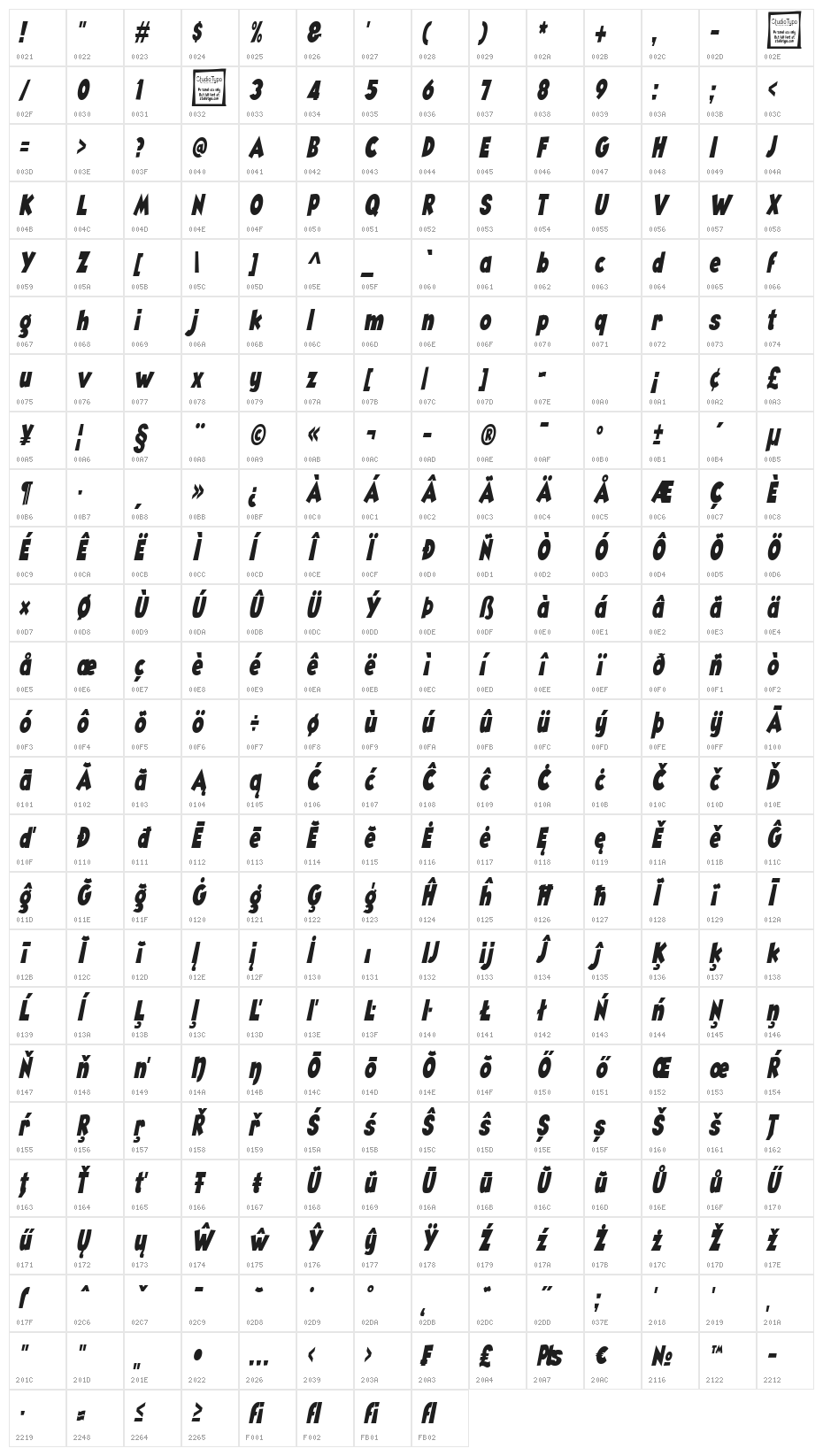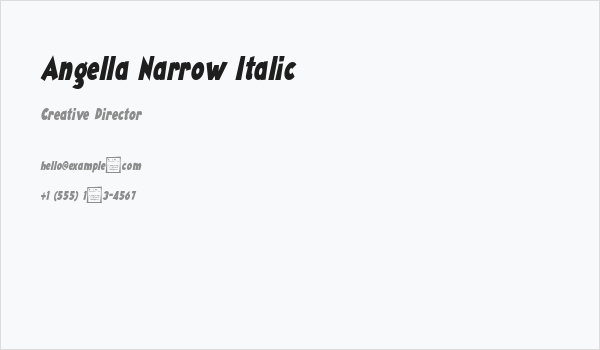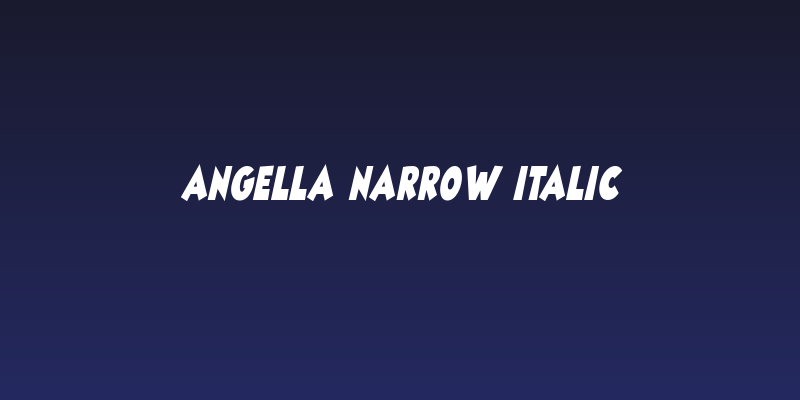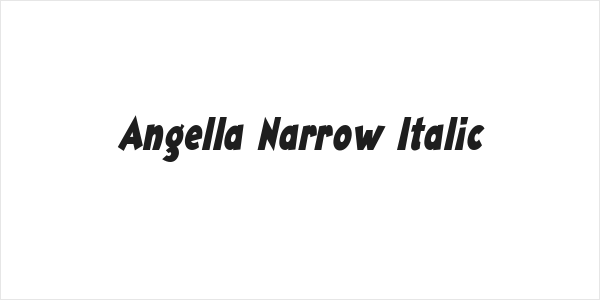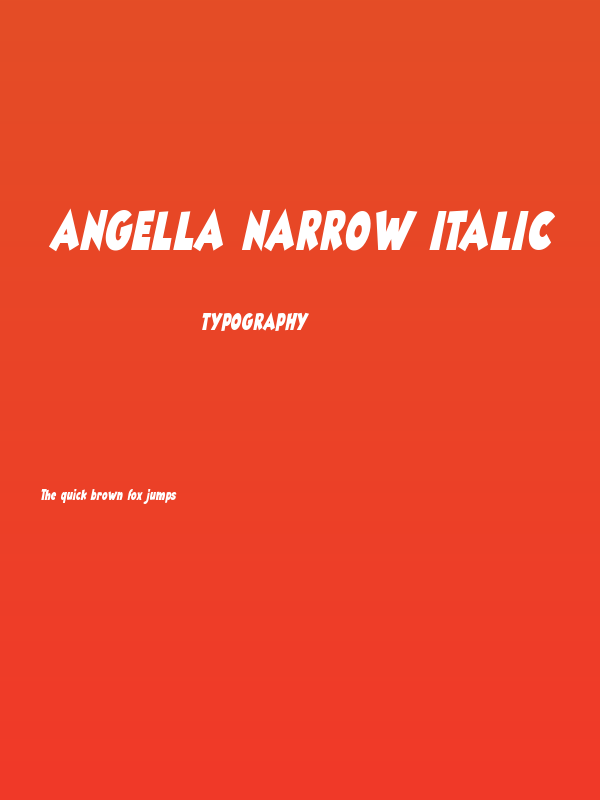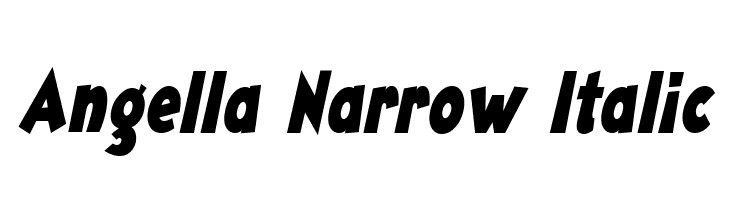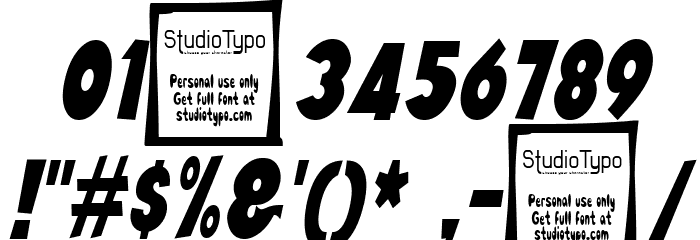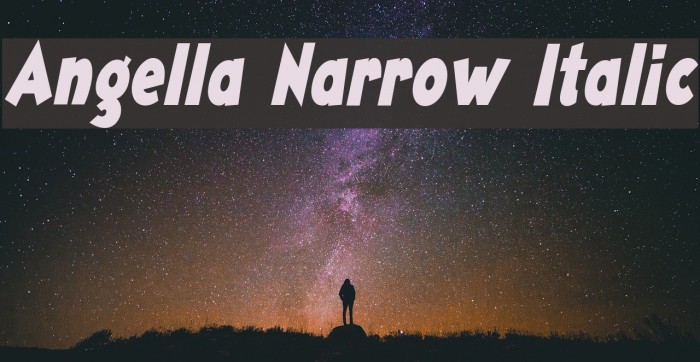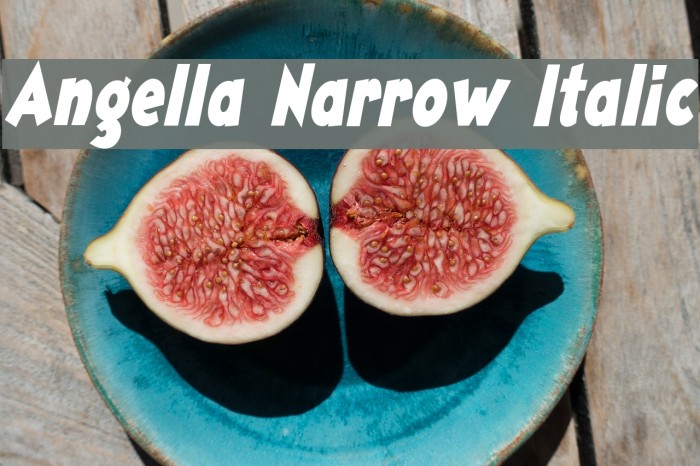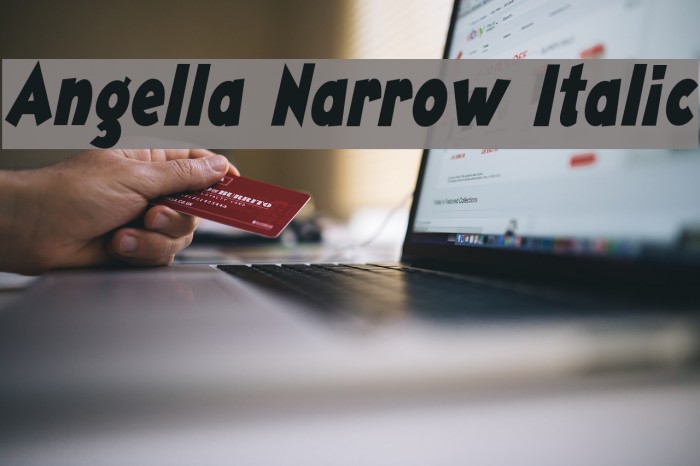
Angella Narrow Italic Font
Angella Narrow Italic Description
This font features a bold and dynamic style with a distinct italic slant, giving it a sense of movement and energy. The characters are narrow, enhancing the compact and sleek appearance. The uppercase and lowercase letters maintain a consistent style, with sharp angles and smooth curves. The numbers and special characters follow the same design principles, ensuring uniformity across all glyphs. This font is ideal for making a strong visual impact, with its bold weight and italicized form adding emphasis and flair.
| Proposed Projects | Ideal for posters, headlines, branding, and any project requiring a bold and impactful typeface. |